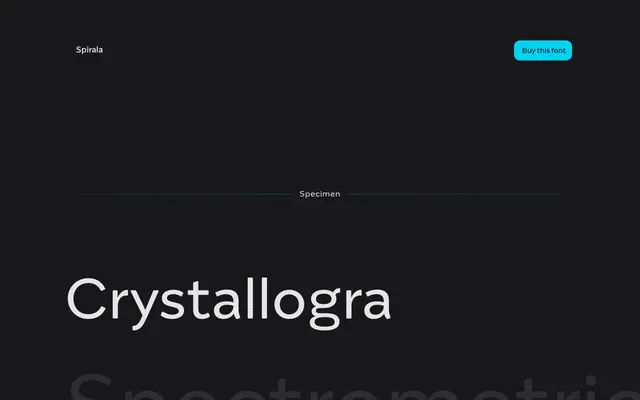
Spirala
Capitalics · Mateusz Machalski, Karol Mularczyk, Malgorzata Bartosik, Borys Kosmynka
An experimental display typeface that merges chamfered-nib calligraphic references with stencil construction and Bézier curve exploration across four weights with matching italics.
Designed under the creative direction of Mateusz Machalski, Spirala pushes the geometry of Bézier curves while referencing the marks of a chamfered calligraphic nib. Its stencil-style construction, with deliberately divided stroke elements, lends a dynamic rhythm that can carry into text setting as well as display use. The family runs across Regular, Medium, SemiBold and Bold, each with a complementary italic.
Spirala is categorised as display due to its experimental exploration of Bézier curves and stencil-style construction; though usable in text setting, its chamfered-nib calligraphic allusions and divided elements mark it as a display-oriented design.